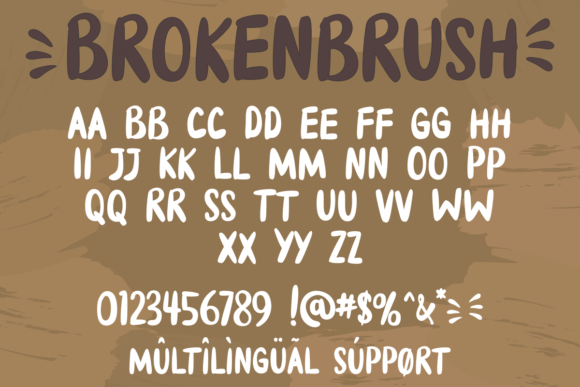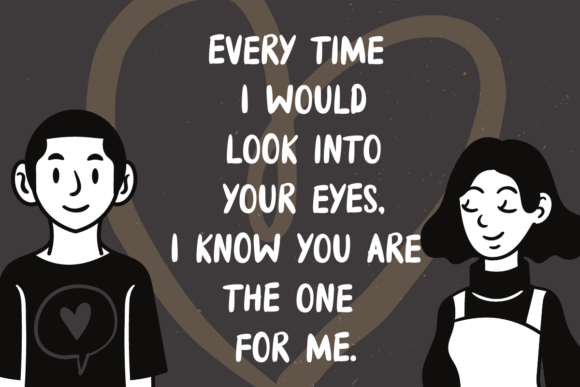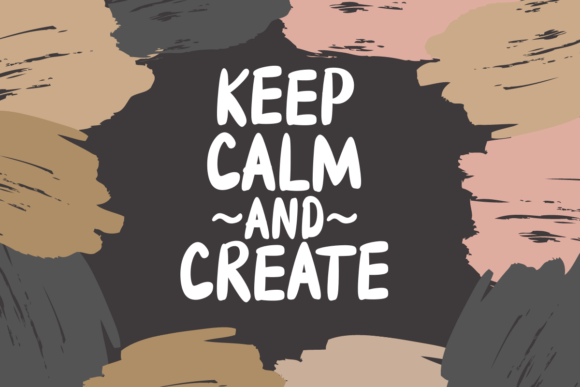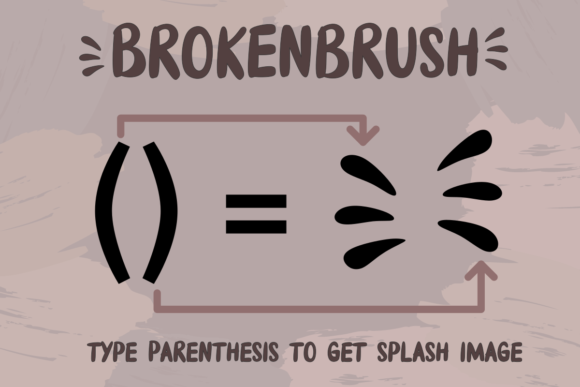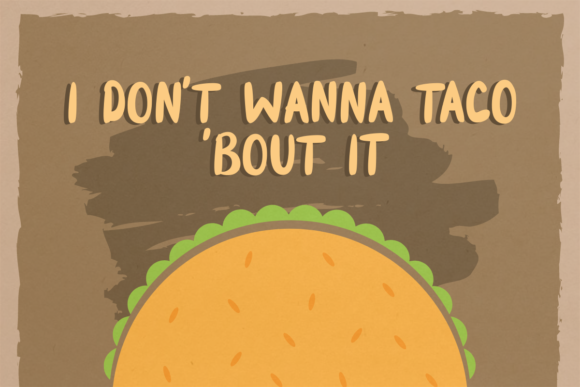
The Perfect Canvas for Your Creativity
You know that moment when a blank page or a blank screen sparks an idea, and suddenly, your imagination runs wild? It’s a feeling every designer and artist is familiar with. For those who’ve been searching for the perfect font to bring their creative vision to life, we’ve got exciting news.
Meet the Brokenbrush Font, a bold and thick lettered display font that’s sure to capture attention. Its natural and simple style makes it incredibly versatile, allowing designers to experiment with a wide range of designs. Whether you’re working on a branding project, a poster, or a social media graphic, the Brokenbrush Font is the perfect addition to your toolkit.
With its limitless possibilities, the Brokenbrush Font is a valuable resource for designers of all levels. Its unique style and adaptability make it an excellent choice for those looking to add a personal touch to their work.
Brokenbrush Font Key Features
- Size: The font family includes 4 different styles – Thin, Light, Regular, and Bold, each with its own unique characteristics.
- Unique Characteristics: Brokenbrush features a hand-drawn, distressed look with subtle brush strokes and imperfections, giving it a unique and artistic feel.
Brokenbrush Font Review
Brokenbrush Font is a hand-painted brush script font that has a certain charm to it. The unique brush strokes and subtle imperfections give it a personal touch, making it perfect for creating a sense of character and personality in your designs ✨
The font is quite versatile and can be used for a wide range of applications, from logo designs to editorial content. It’s also highly legible, making it a great choice for body text ✨
One of the standout features of Brokenbrush Font is its ability to add a touch of whimsy and playfulness to your designs. It’s perfect for creating a brand identity that’s friendly and approachable ✨
- ⚠️ Limited character set: The font has a relatively small character set, which can make it difficult to use for longer blocks of text.
- ⚠️ Not ideal for small text: The font is best used for larger text sizes, as the brush strokes can become difficult to read at smaller sizes.
- ⚠️ May require additional styling: To get the most out of Brokenbrush Font, you may need to apply additional styling, such as bolding or italicizing, to create visual interest.
Overall, Brokenbrush Font is a unique and charming font that’s perfect for adding a touch of personality to your designs. While it may have some limitations, its versatility and legibility make it a great choice for a wide range of applications. With a little creativity and styling, you can unlock the full potential of this font and create designs that truly stand out ✨
The Brokenbrush font is ideal for creating rustic, vintage, or distressed text effects. Use it for:
- Retro-style posters and advertisements.
- Distressed or worn-out text effects.
- Vintage-inspired designs and illustrations.